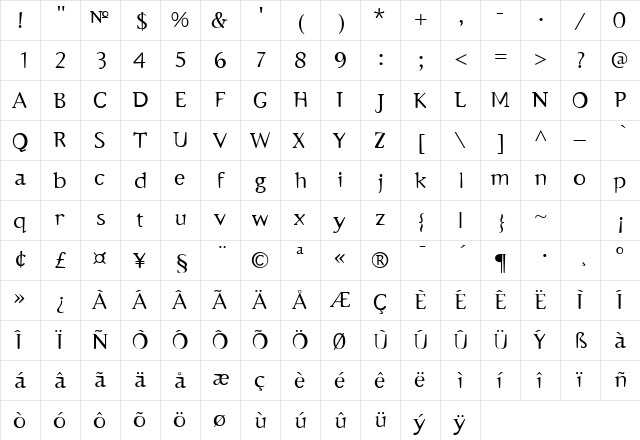
Emulate Regular
Design Context for Emulate Typeface
Emulate takes a measured approach to typography — its balanced proportions and neutral character make it a reliable workhorse for both digital and print work.